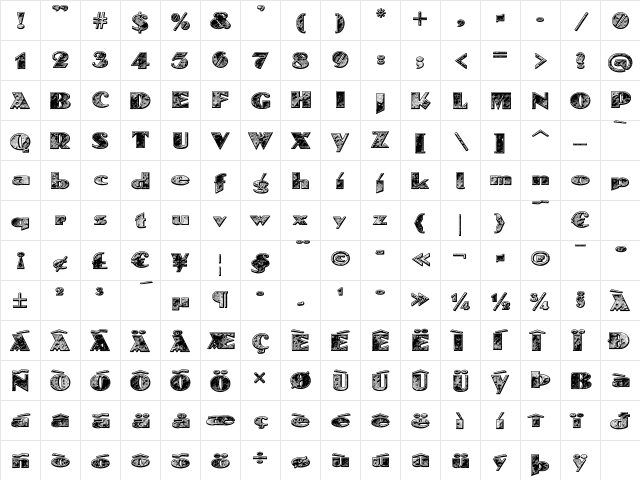
SkuareNot 'Waveform' Regular
Design Context for SkuareNot 'Waveform' Typeface
SkuareNot 'Waveform' is a composed and adaptable typeface that performs quietly and consistently across a wide range of design contexts.